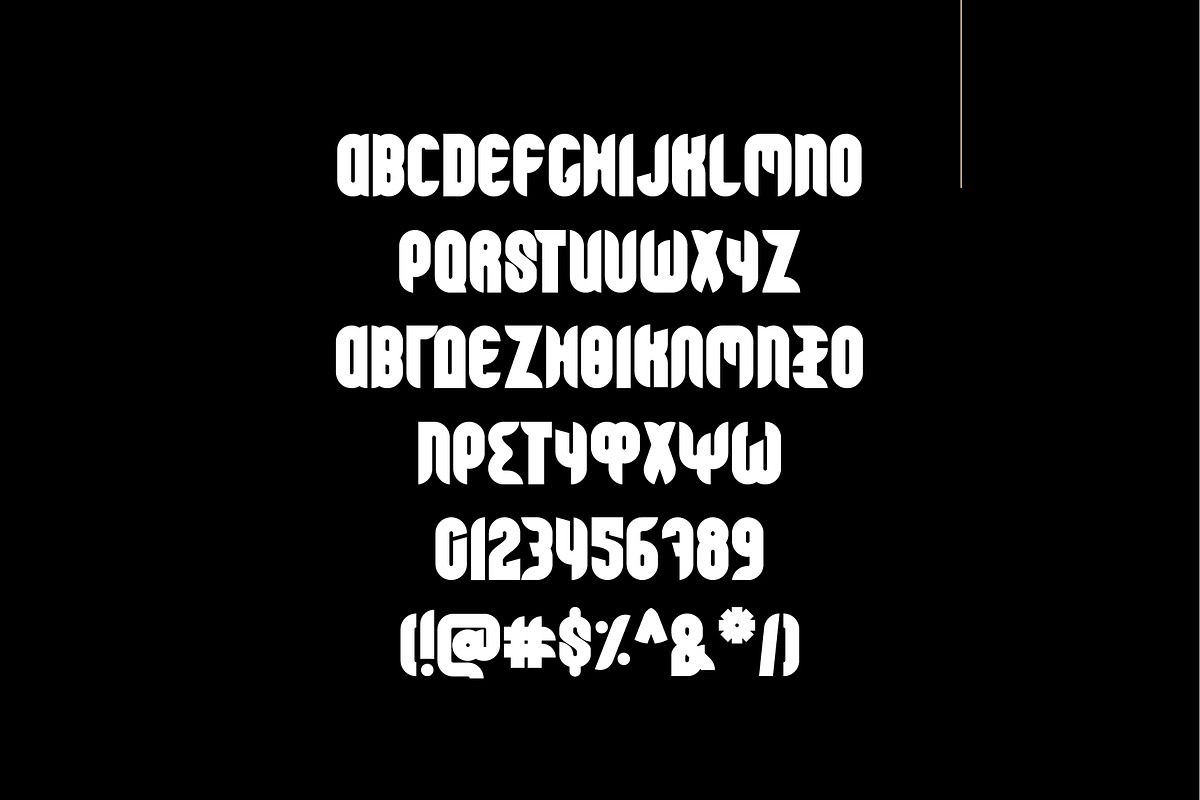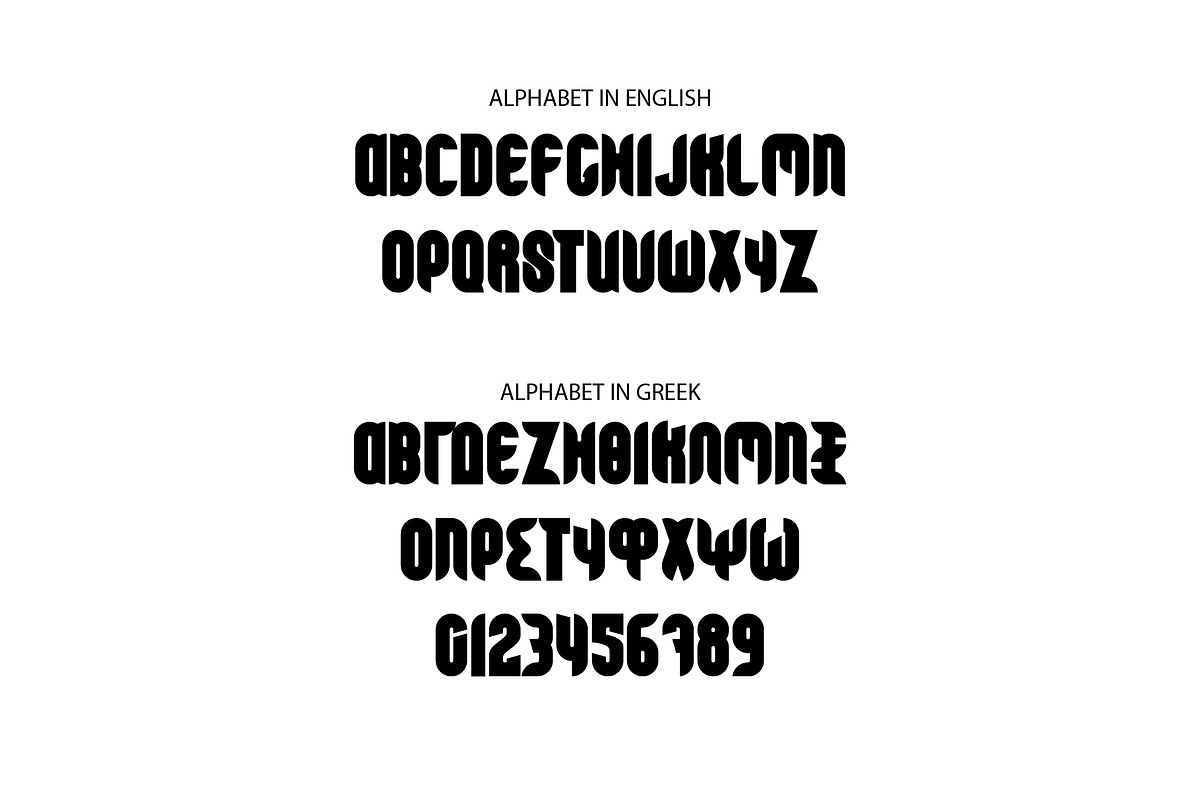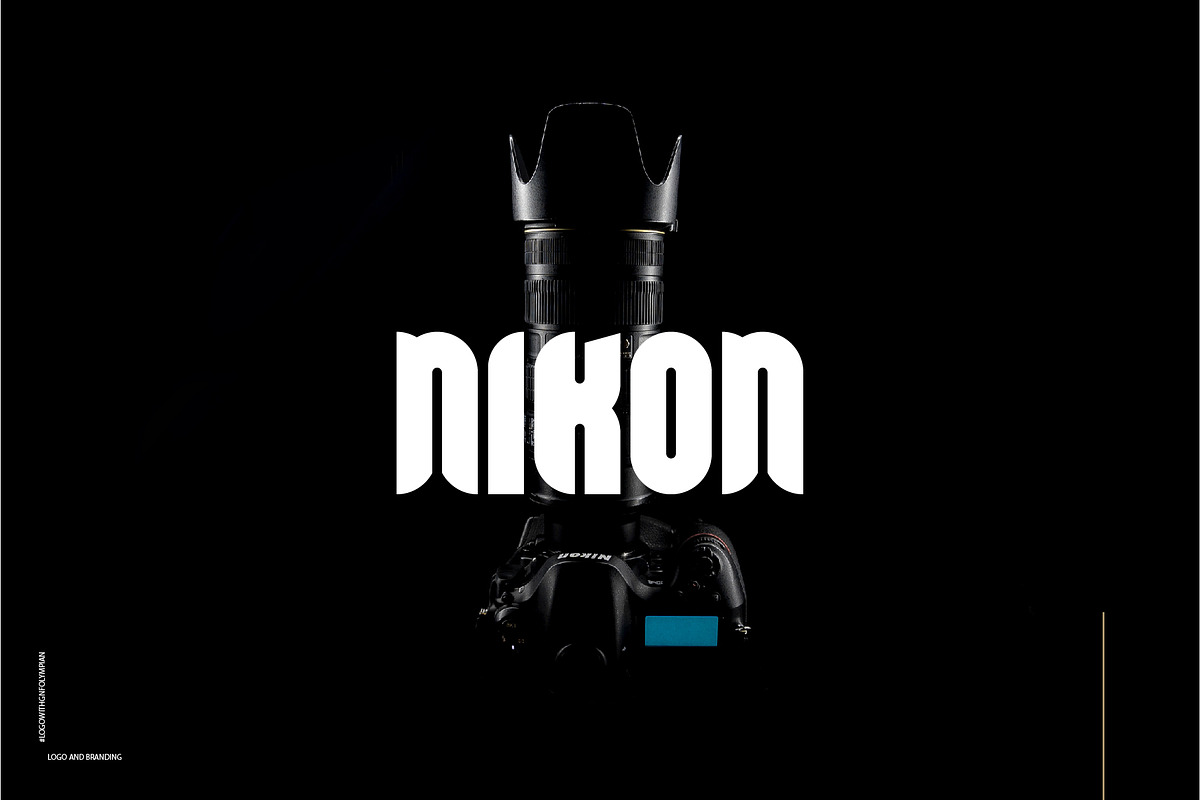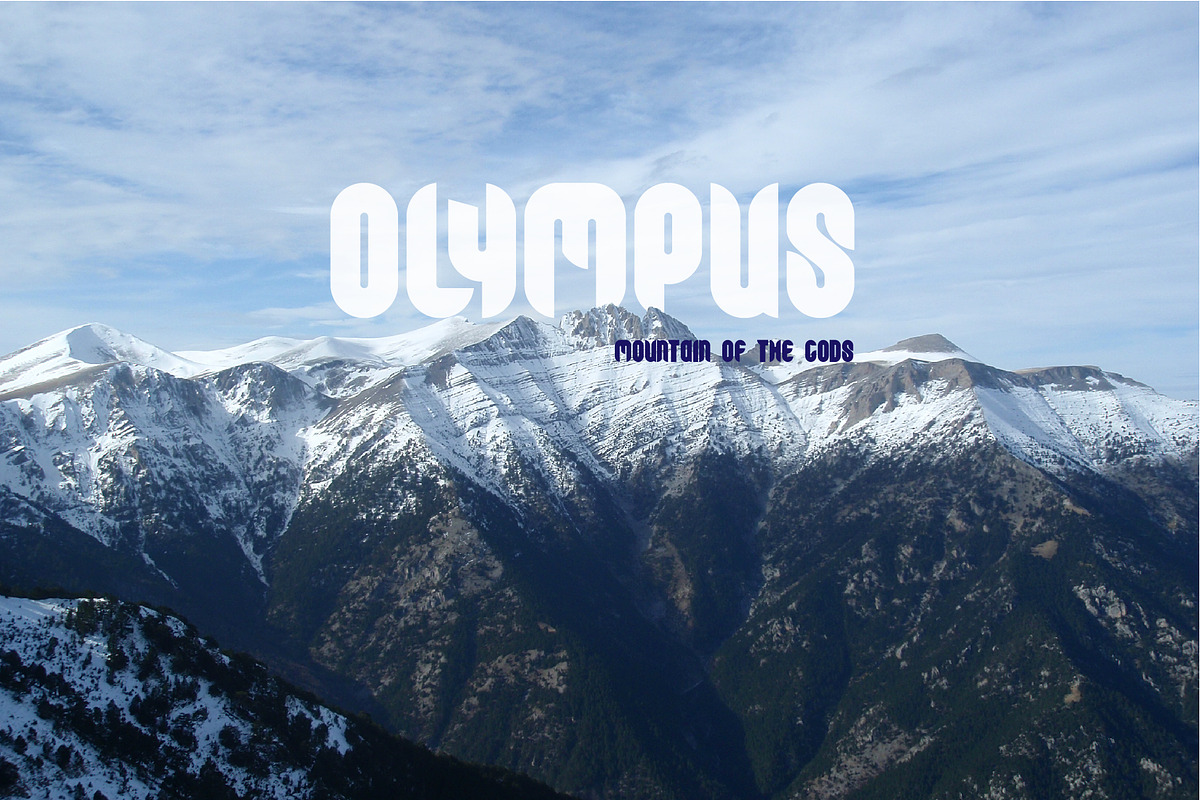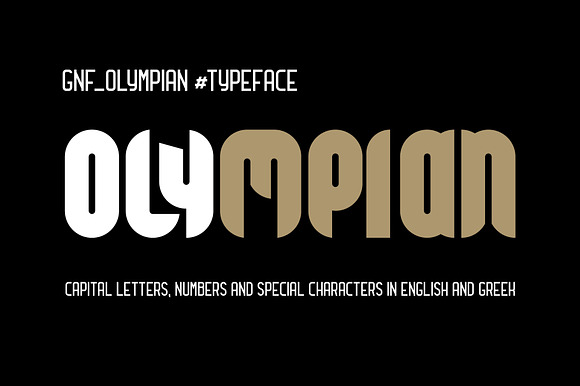
GNF-Olympian Font
Elegant bold font for titles and logo creation... 2 languages supported, English and Greek, capital letters only, numbers and some special characters...
- 2 languages supported, English and Greek, capital letters only, numbers and some special characters...
GNF-Olympian Font by george.nikolaidis fits naturally into Branding, posters, packaging, typography.